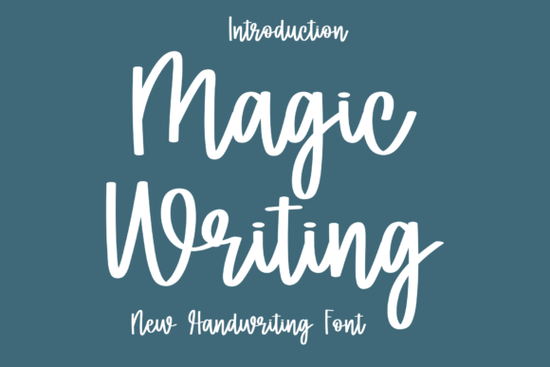
If you're looking for a handwritten script font that feels polished without losing its personal touch, Magic Writing is worth a close look. It's a fluid, elegant typeface designed with luxury projects in mind think wedding invitations, boutique branding, and editorial layouts that need a refined, hand-lettered feel.
What makes Magic Writing different from other script fonts?
There are thousands of script fonts out there, so what sets this one apart? Magic Writing strikes a balance between readability and beauty. Some calligraphy fonts look gorgeous but fall apart at smaller sizes. Others are legible but feel stiff and lifeless. This font sits right in the middle fluid enough to feel handcrafted, but clean enough to work in professional design projects.
The letterforms flow naturally with smooth connecting strokes. The weight is consistent, which means it doesn't get too thin or too heavy in awkward spots. For designers who've struggled with script fonts that require constant kerning adjustments, that's a real time-saver.
What projects work best with this font?
Magic Writing is especially well-suited for projects that call for a sophisticated, personal aesthetic. Here are some popular uses:
- Wedding stationery Save-the-dates, invitations, menus, place cards, and thank-you notes
- Event branding Milestone birthdays, bridal showers, anniversary parties
- Editorial design Magazine signatures, pull quotes, and section headers
- Lifestyle photography overlays Quotes and captions for Instagram or Pinterest
- Print-on-demand products Mugs, tote bags, greeting cards, and wall art
- Small business branding Beauty salons, bakeries, boutique shops, and florists
If you run an Etsy shop or sell on platforms like Redbubble or Zazzle, a font like this adds a premium look to your product mockups and final designs. Customers associate elegant script lettering with quality it's a subtle detail that can make a real difference in perceived value.
How does it compare to other elegant script fonts?
If you're browsing script fonts for your next project, you might also want to check out Ardenta, which has a more traditional calligraphy style with dramatic thick-to-thin strokes. It works beautifully for formal invitations and certificate designs.
For something with a slightly bolder, more textured personality, Handmade Velvet brings a hand-lettered warmth that pairs well with rustic or bohemian themes.
And if you want something playful and lighthearted maybe for a children's brand or a dessert shop More Gelato Please is a fun alternative with a casual, whimsical vibe.
Magic Writing sits apart from these because of its modern elegance. It doesn't lean vintage or whimsical. It feels current, clean, and upscale the kind of font you'd see on a high-end candle label or a luxury skincare brand.
Is it easy to use for beginners?
One thing to keep in mind: like most script fonts, you'll want to add a small space between words to keep the text legible. The connecting strokes are smooth, but at very small sizes, tight spacing can make the letters blur together. A little manual tracking adjustment usually fixes this quickly.
Does it include extras?
Check the Magic Writing font page for full details on what's included. Many premium script fonts come with alternate characters, ligatures, and swashes that let you customize the look of individual letters. These extras are especially helpful for logos and monograms where you want each design to feel unique.
- ✔ Test it at the size you'll actually use most (a font that looks great at 72pt might not work at 12pt)
- ✔ Pair it with a clean sans-serif font for body text to keep your layouts balanced
- ✔ Browse similar options like Ardenta or Handmade Velvet to compare styles before deciding
Tip: Try setting your project name or client's name in Magic Writing alongside a simple sans-serif like Montserrat or Lato. That combination tends to look polished without much effort a reliable pairing you can use across wedding suites, branding kits, and social media templates.